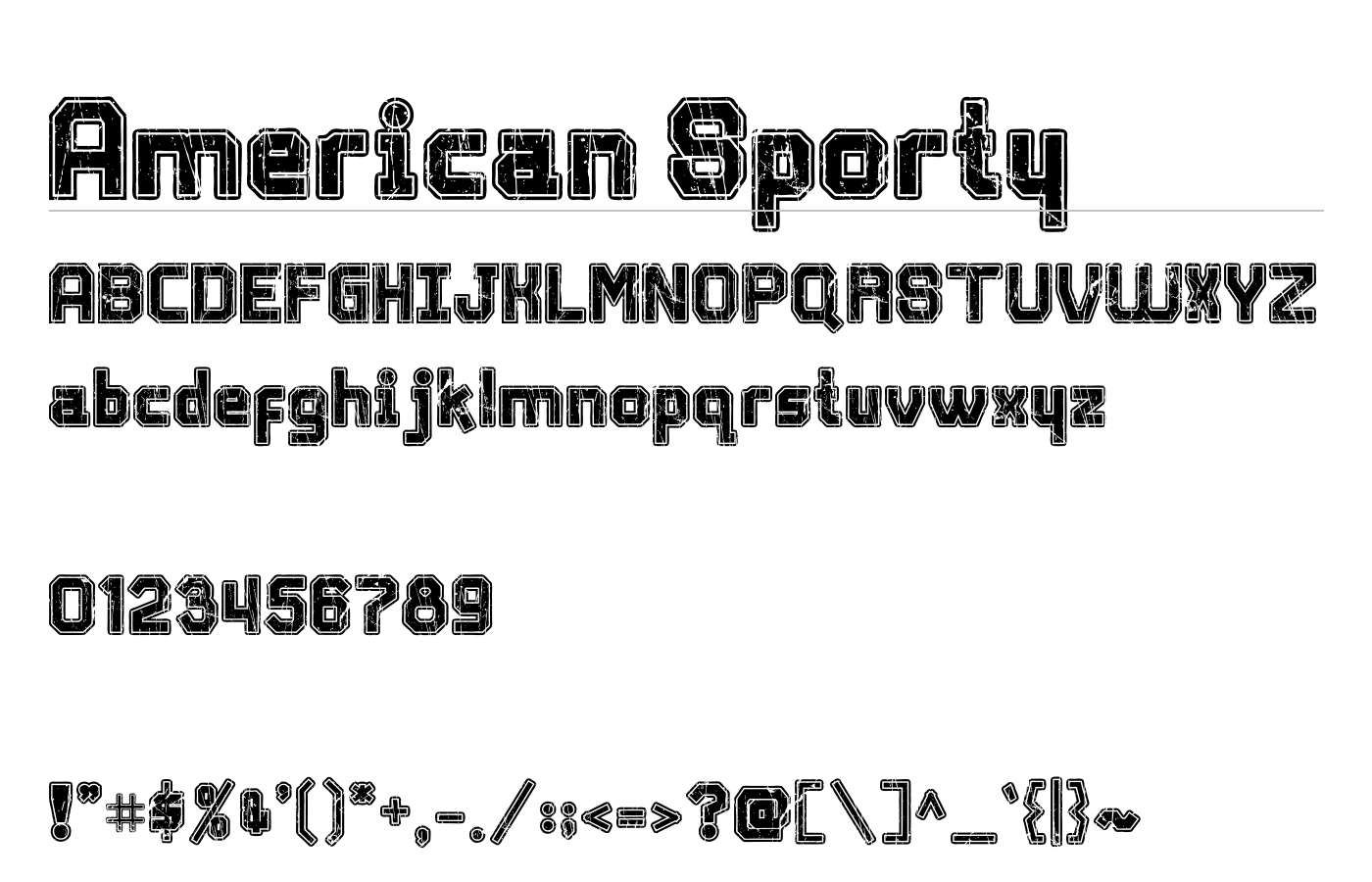
American Sporty is a bold, condensed sans serif font with a textured, distressed style that evokes a vintage athletic spirit. Its strong geometric shapes and uppercase focus give it a dynamic, energetic feel perfect for sports branding, team logos, and retro-inspired design projects. This font combines toughness with nostalgia, making it ideal for impactful headlines and eye-catching apparel designs.
American Sporty Font
About American Sporty Font
| Font family | American Sporty Font |